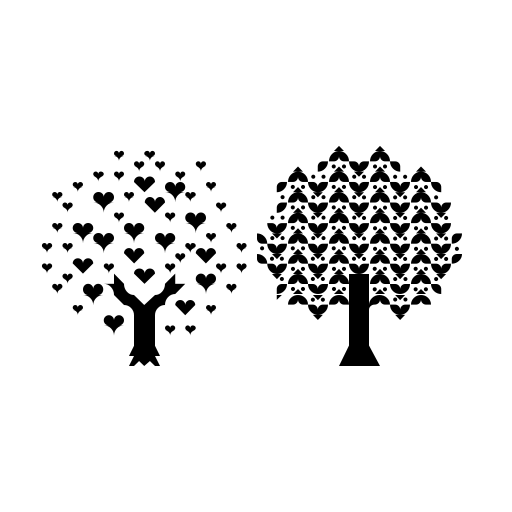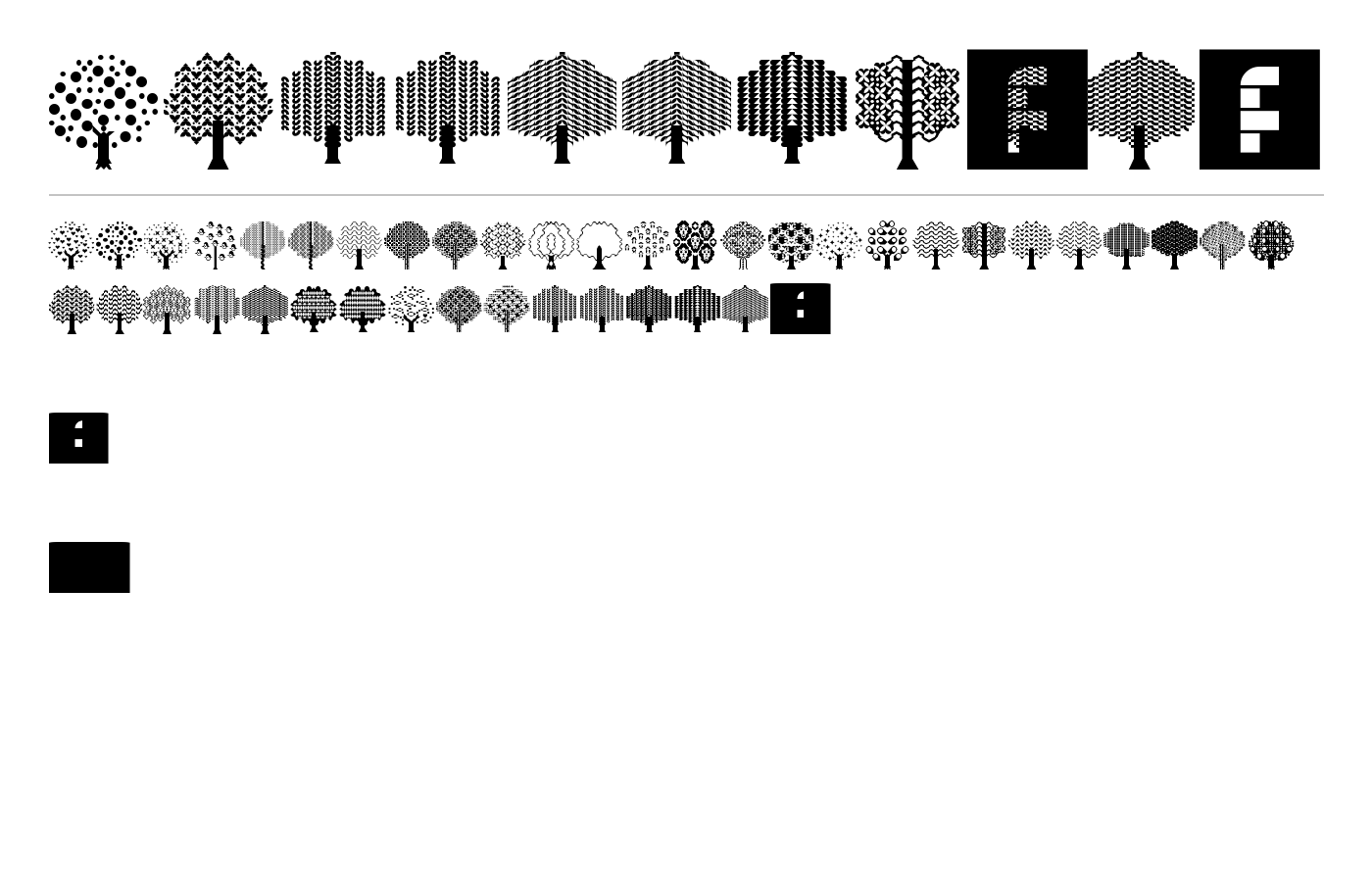
BalloonTrees is a decorative and playful symbol font featuring a variety of stylized tree icons filled with intricate, geometric patterns. Its bold, graphic shapes and high contrast make it perfect for creative projects, branding, or editorial designs that need a unique and eye-catching nature-inspired element. This font brings a whimsical, artistic vibe ideal for packaging, posters, and logos looking to stand out with a modern yet organic feel.
BalloonTrees Font
About BalloonTrees Font
| Font family | BalloonTrees Font |
| Designer | zWalton |